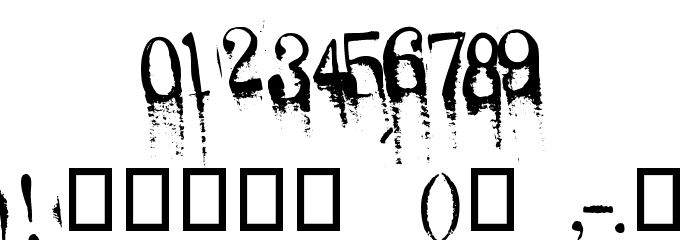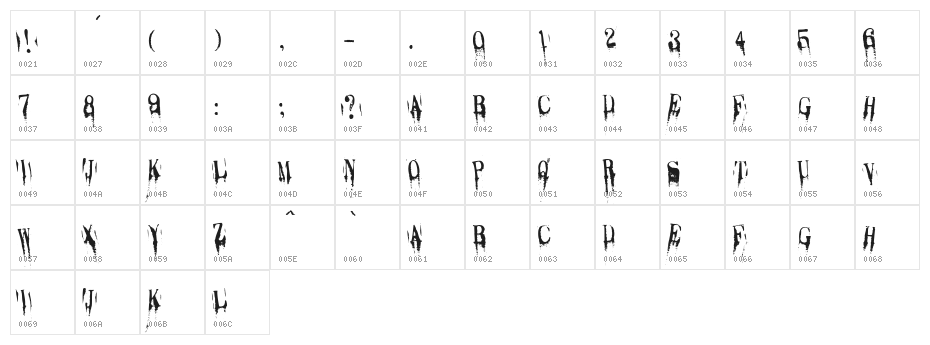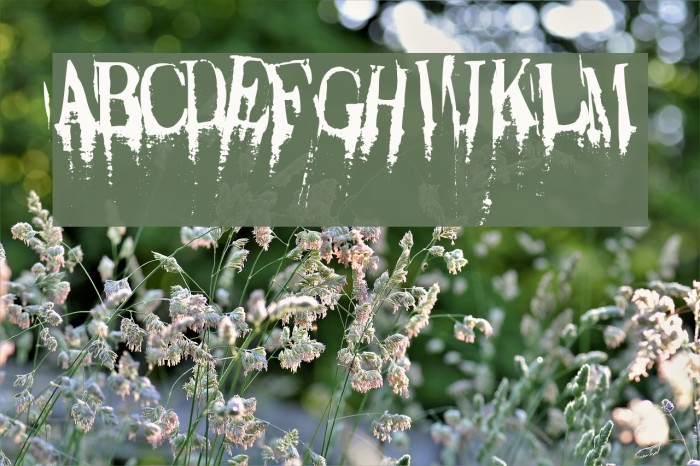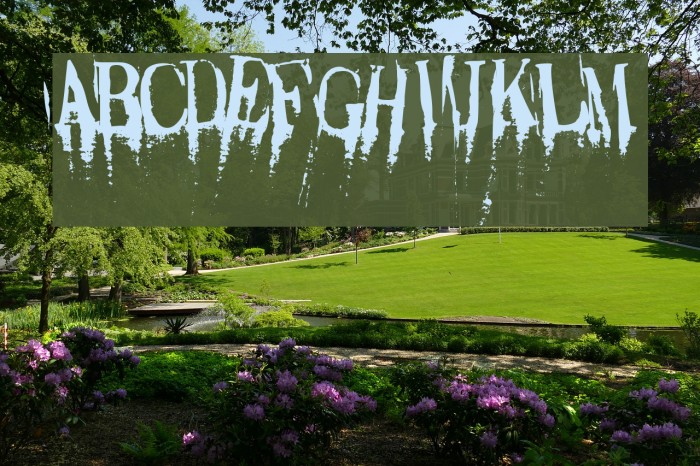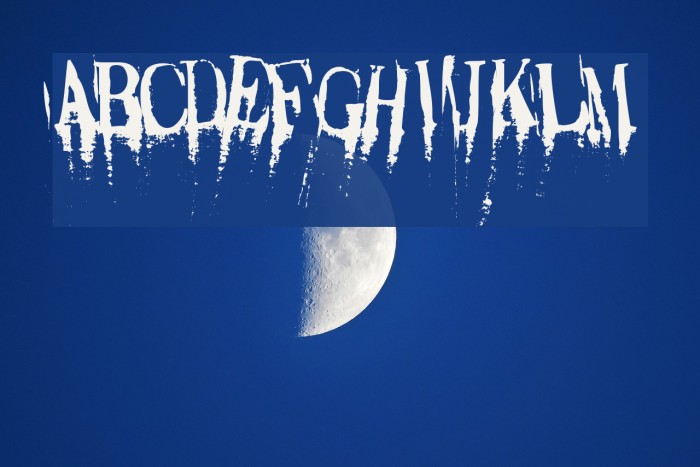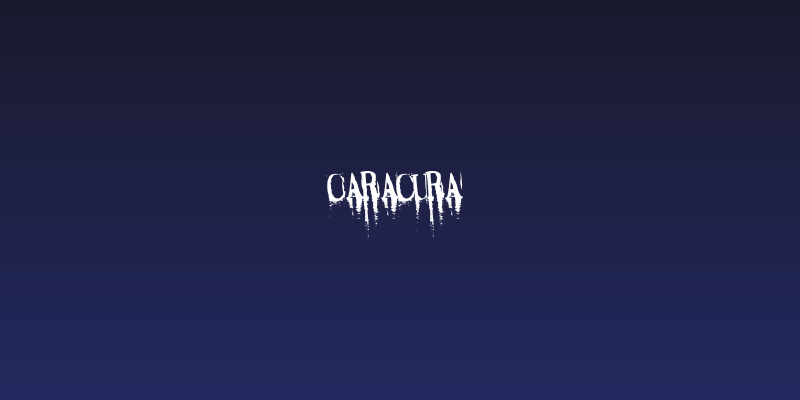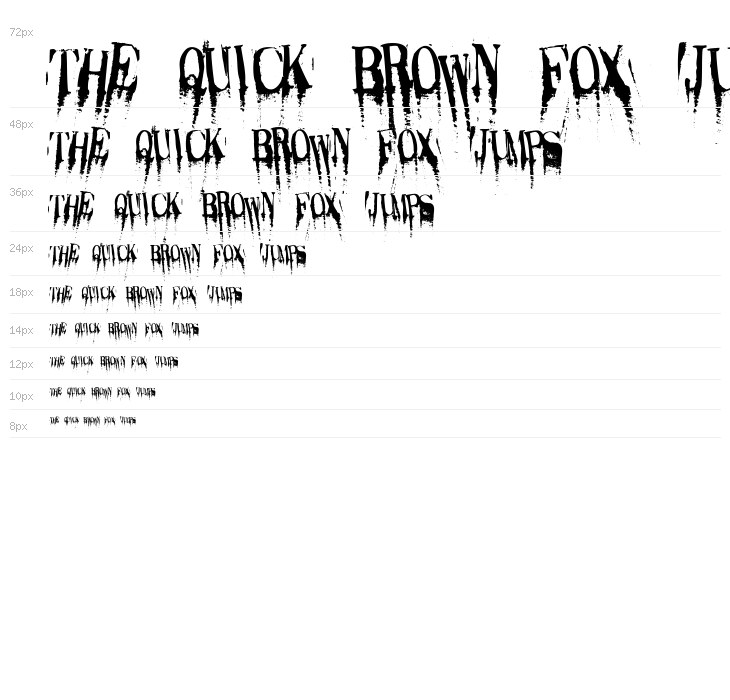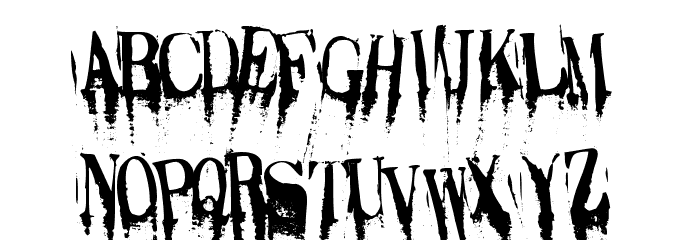
Caracura Font
Caracura Description
This font features a highly distressed and grungy aesthetic, with each character appearing as if it has been splattered with ink or paint. The uppercase letters are bold and jagged, with irregular edges that give a chaotic and rebellious feel. The lowercase letters maintain this rugged style, ensuring consistency throughout the typeface. Numbers and special characters follow the same design principles, making the font suitable for projects that require a raw, edgy look. The overall appearance is reminiscent of street art or graffiti, making it ideal for designs that aim to capture an urban or alternative vibe.
| Overall Style | Grunge, Urban, Edgy |
| Proposed Projects | Album covers, streetwear branding, event posters, or any project needing an edgy, urban feel. |